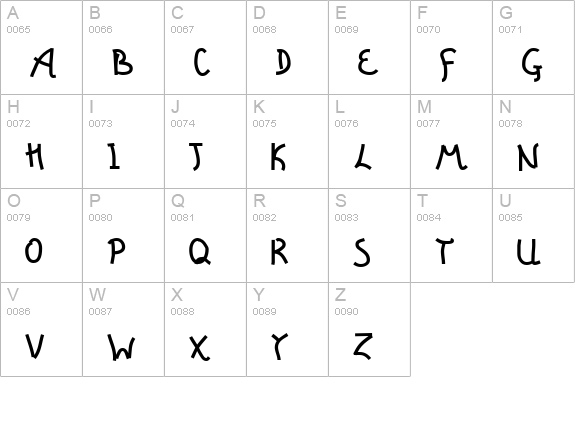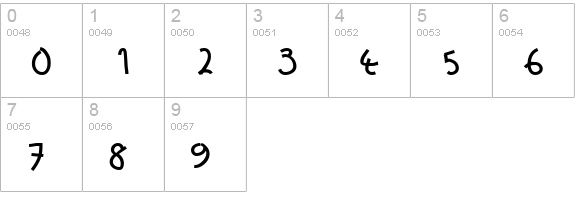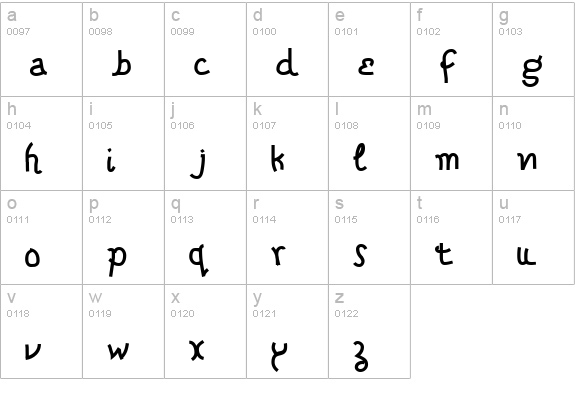
Tragic Bureau Font Details
Introducing Tragic Bureau, a visually captivating font that effortlessly combines elegance and tragedy in its design. This unique typeface evokes a sense of melancholy and intricacy, making it the perfect choice for projects that require a touch of sophistication with a hint of sorrow. With its delicate curves and intricate details, Tragic Bureau stands out among other fonts, capturing the eye and leaving a lasting impression. Its graceful lines and perfectly balanced proportions create a harmonious blend of beauty and tragedy, making it an ideal choice for branding, logo design, editorial work, and more. The versatility of Tragic Bureau allows it to adapt to various design styles, from vintage and retro to contemporary and minimalistic. Whether you're working on a book cover, poster, or website, this font will effortlessly convey your message with a touch of elegance and a dash of tragedy. The best part? Tragic Bureau is freely available to download at FontsMarket.com. This means that you can unleash your creativity without any limitations or constraints. Whether you're a professional designer or an aspiring artist, this font is at your disposal, ready to bring your creative vision to life. So, why wait? Embrace the beauty and tragedy of Tragic Bureau and let your designs stand out from the crowd. Download this stunning font for free at FontsMarket.com and unlock a world of possibilities for your next project.